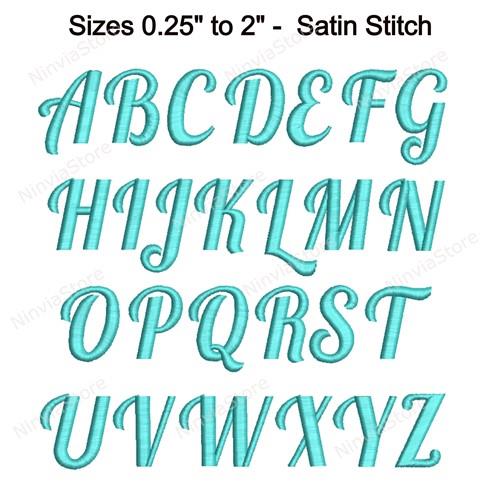
Maya Kreations is happy to present Seamaiden Font machine embroidery font which has Flowing script style machine embroidery font with smooth curves, ideal for creative projects on clothing and accessories. Available in PES, DST, and multiple other formats including JEF and VP3. included. If you would like to view more embroidery fonts and alphabets please search our embroidery fonts page.